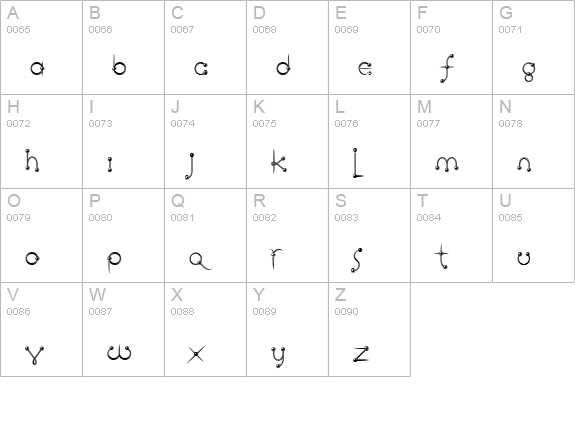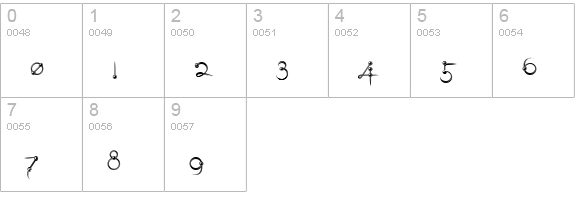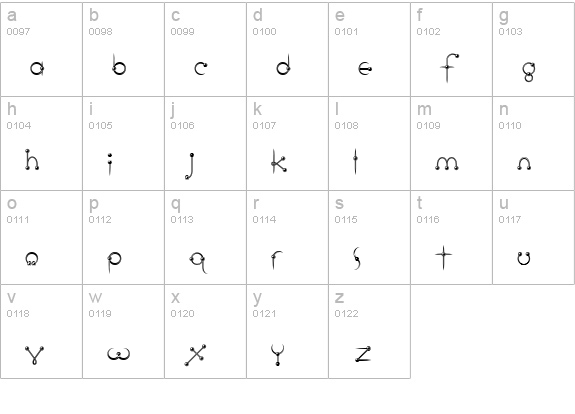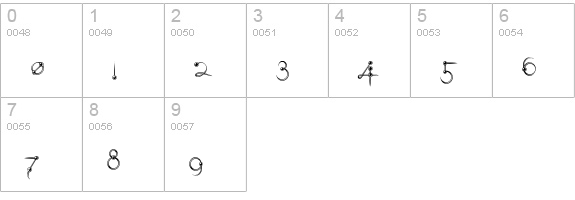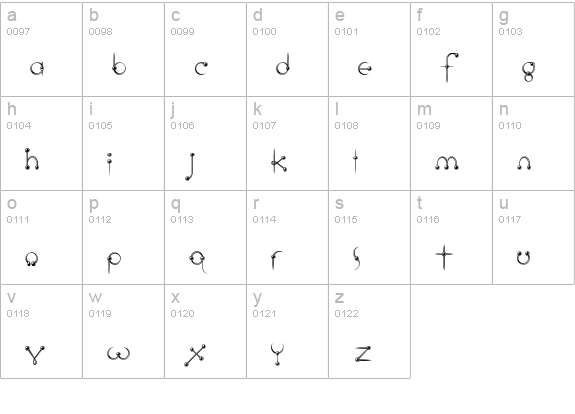
ringpin Font Details
Ringpin font is a stunning display typeface that exudes elegance and sophistication. With its sleek lines and modern aesthetic, this font is perfect for adding a touch of class to any project. The unique design of Ringpin font makes it stand out from the crowd, making it ideal for logos, branding, and other design projects. What sets Ringpin font apart is that it is not only visually appealing, but also versatile and easy to work with. Whether you're looking to create a sleek and modern look or a more traditional and classic design, Ringpin font has you covered. Best of all, Ringpin font is completely free to download at FontsMarket.com. So why wait? Add a touch of elegance to your designs with Ringpin font today!